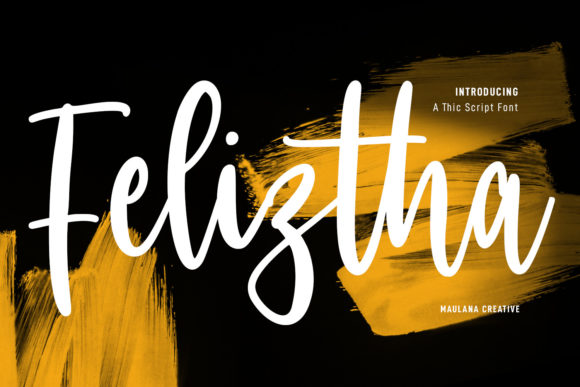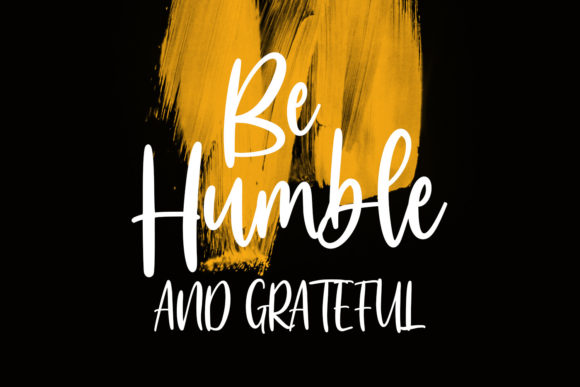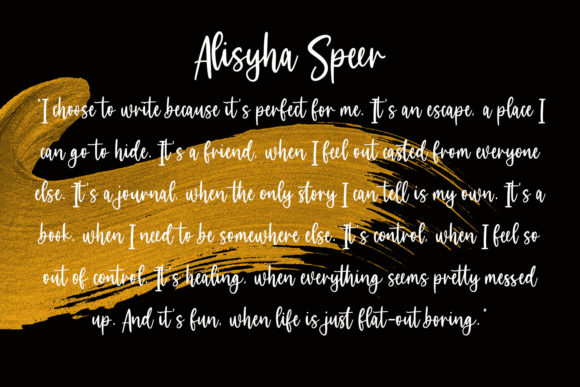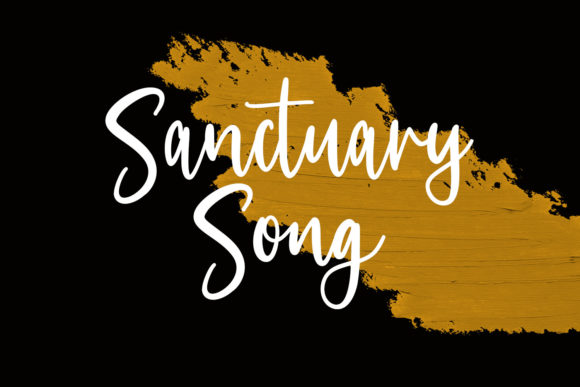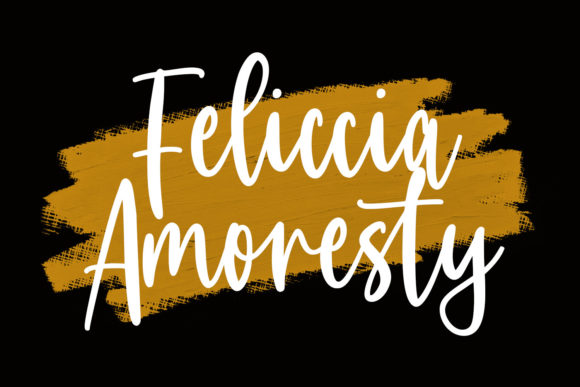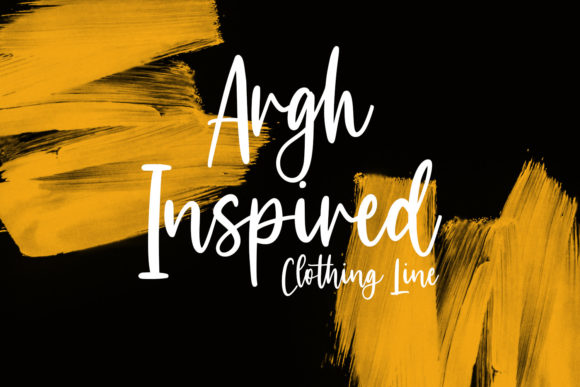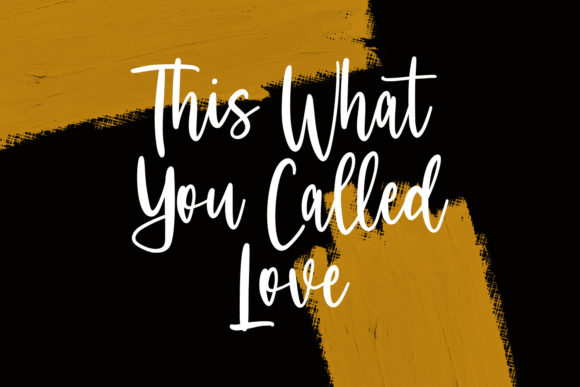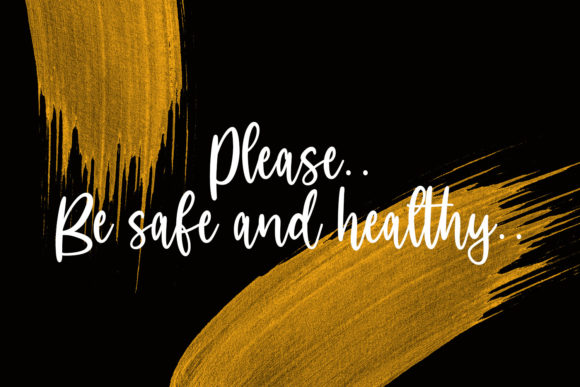
Feliztha Script Font
About Feliztha Script Font
Feliztha Script is a delicate and beautiful script font. Incredibly versatile, this font fits a wide pool of designs, elevating them to the highest levels. Add this font to your favorite creative ideas and notice how it makes them come alive!